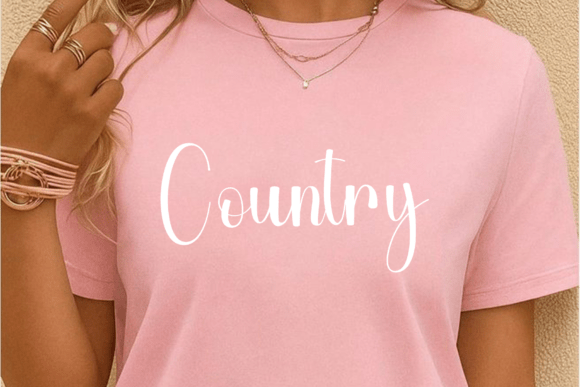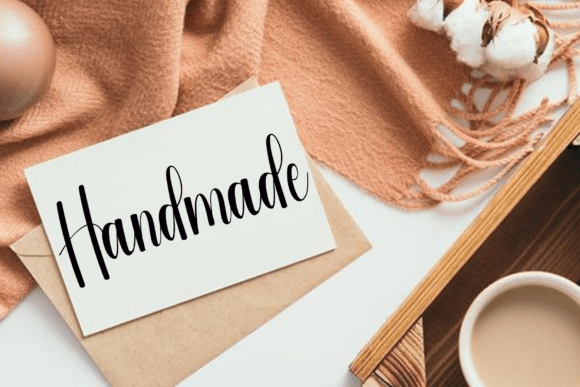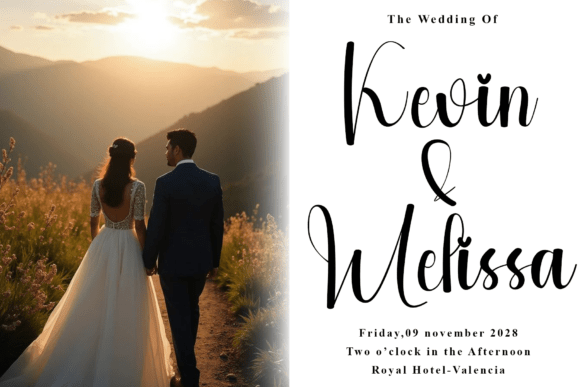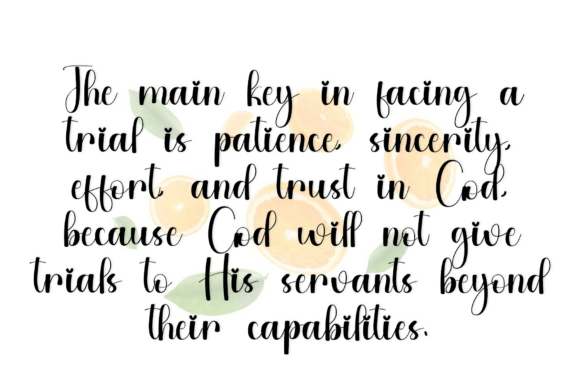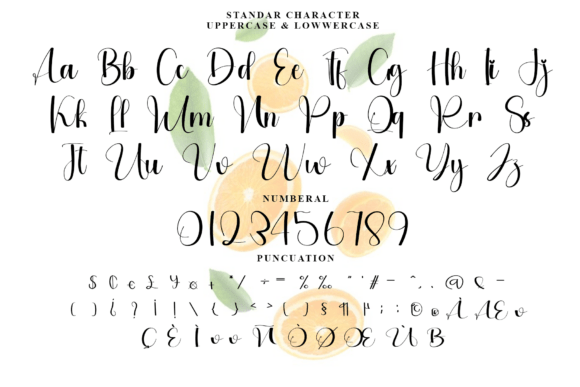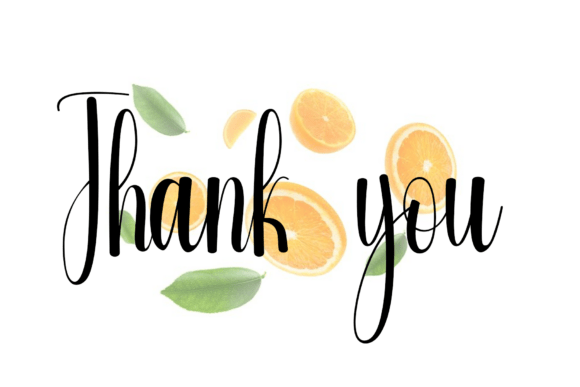
The Fruity Orange Font: A Breath of Fresh Air for Your Designs
Have you ever been in the middle of a design project, and suddenly, you’re stuck on finding the perfect font? I recall a recent experience where I was working on a travel photography portfolio, and my client requested a font that exuded a sense of adventure and sophistication. After hours of scouring through font libraries, I stumbled upon the Fruity Orange font. It was love at first sight! ✨
A Refreshing Addition to the Modern Handwritten Collection
Fruity Orange is a unique and professional entry into the modern handwritten collection. Its tall, thin strokes with a subtle, airy slant offer a refined aesthetic that feels as fresh as a mountain breeze. This font is designed to evoke a sense of clarity and crisp elegance, making it ideal for travel photography, branding for outdoor gear, and sophisticated web design.
- ✅ Elegant and refined aesthetic
- ✅ Perfect for travel and outdoor-themed designs
- ✅ Clean and approachable style
- ✨ Subtle, airy slant adds a touch of sophistication
While Fruity Orange is an excellent font, there are a few minor quirks to be aware of: ⚠️ The font may not be suitable for body text due to its thin strokes. Also, some users have reported that the font’s OpenType features can be a bit tricky to navigate. 🤔
The Designer Inspiration Behind Fruity Orange
According to its designer, Fruity Orange was inspired by the crisp, clean air of the mountains. The designer aimed to create a font that would evoke a sense of freshness and sophistication, perfect for travel and outdoor-themed designs.
Q: What is the best use case for Fruity Orange?
A: Fruity Orange is ideal for travel photography, branding for outdoor gear, and sophisticated web design.
Q: Can I use Fruity Orange for body text?
A: While Fruity Orange is a beautiful font, it may not be suitable for body text due to its thin strokes. It’s best used for headlines and titles.
Q: Does Fruity Orange have OpenType features?
A: Yes, Fruity Orange has OpenType features, including glyphs and stylistic alternates, which can add visual interest to your design.
Q: Is Fruity Orange a versatile font?
A: Yes, Fruity Orange is a versatile font that can be used for a variety of design projects, from travel and outdoor themes to sophisticated web design.